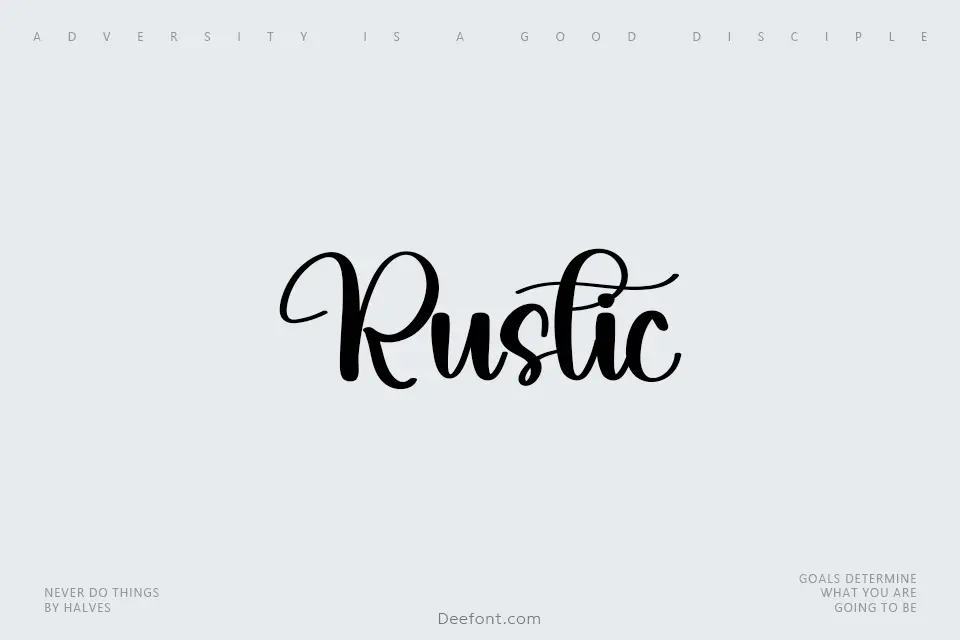
Rustic Font
Rustic is a charming handwritten script typeface that captures the essence of artisanal design with its organic, flowing character strokes and natural variations. This authentic handwritten font brings warmth and personality to every project, making it ideal for wedding invitations, rustic branding, farmhouse decor, greeting cards, poster design, and vintage-themed compositions. With its relaxed aesthetic and handcrafted feel, Rustic adds genuine character to logos, product packaging, labels, and display typography. The font’s irregular yet cohesive letterforms evoke a sense of nostalgia and comfort, perfectly suited for projects requiring that coveted down-to-earth, artisanal ambiance.